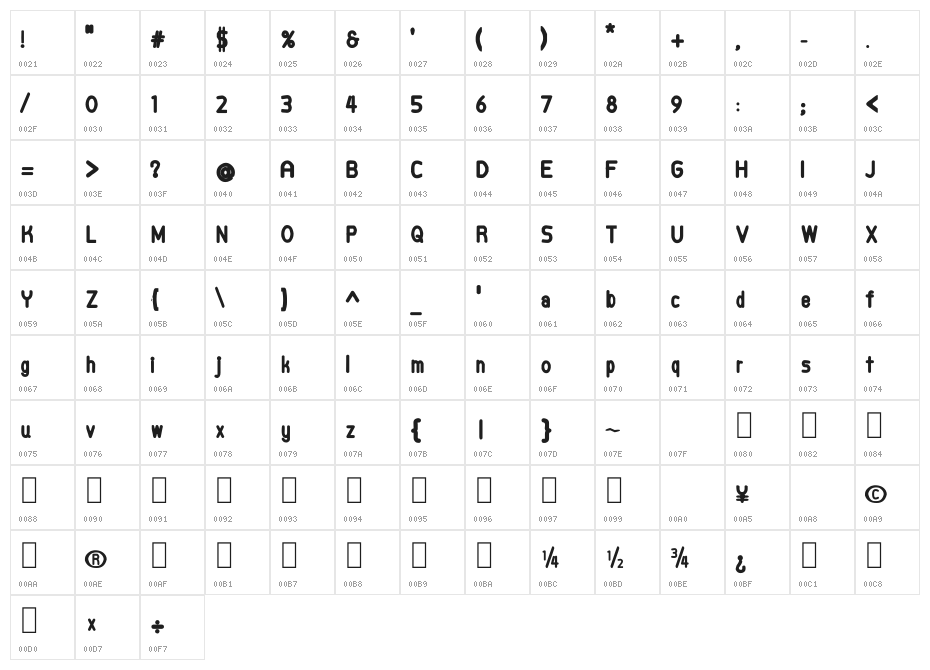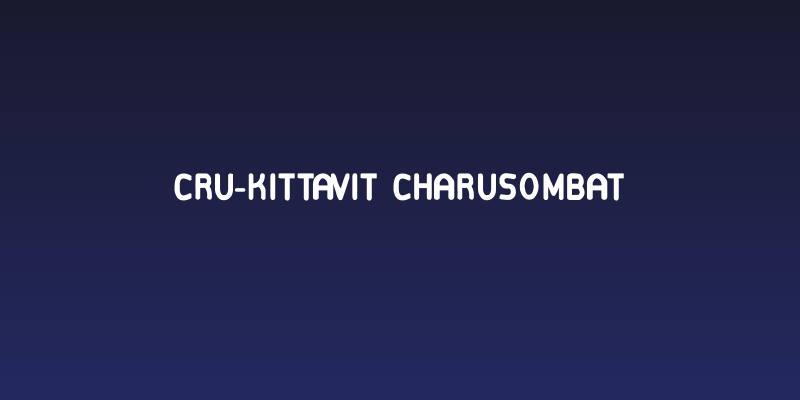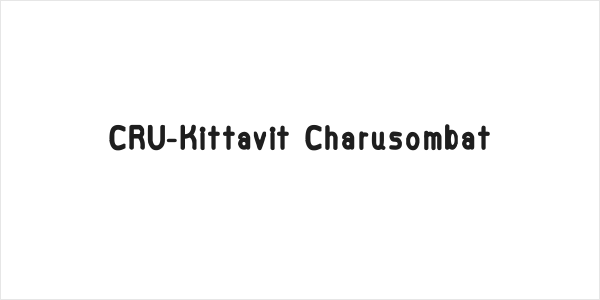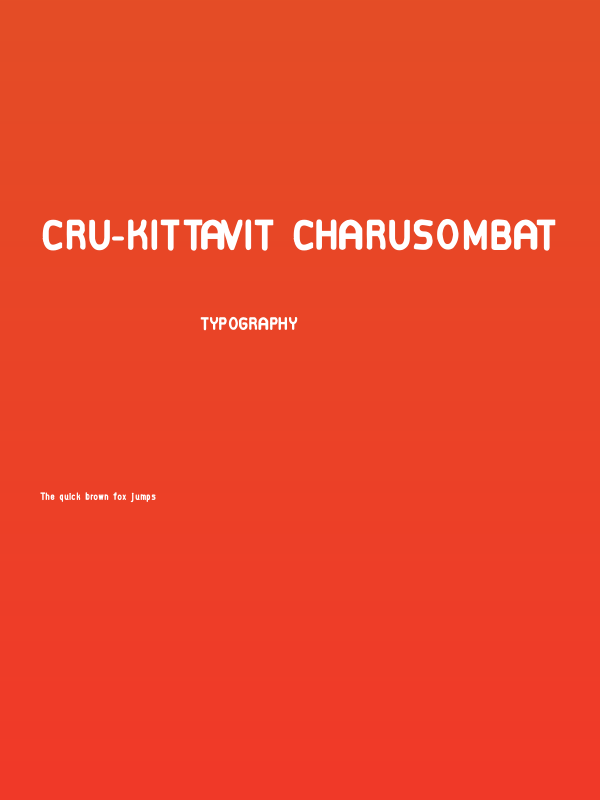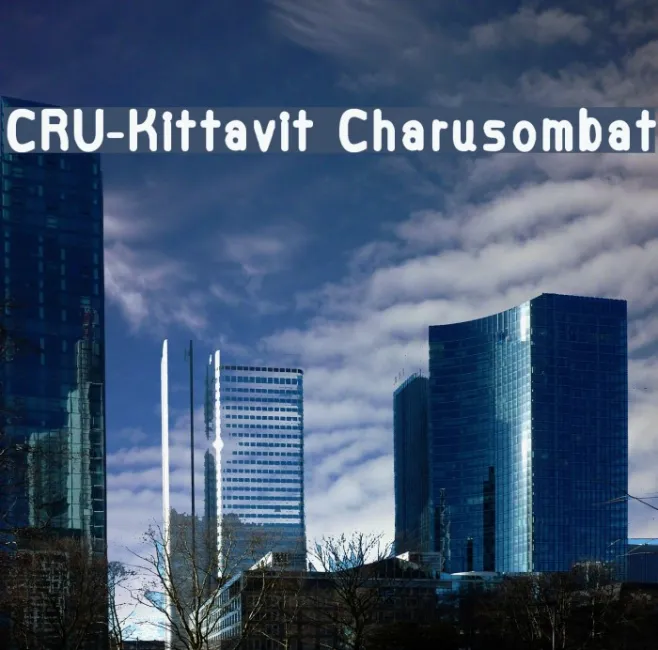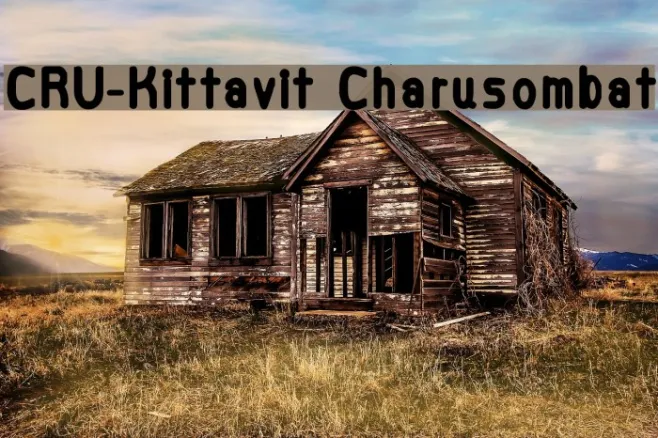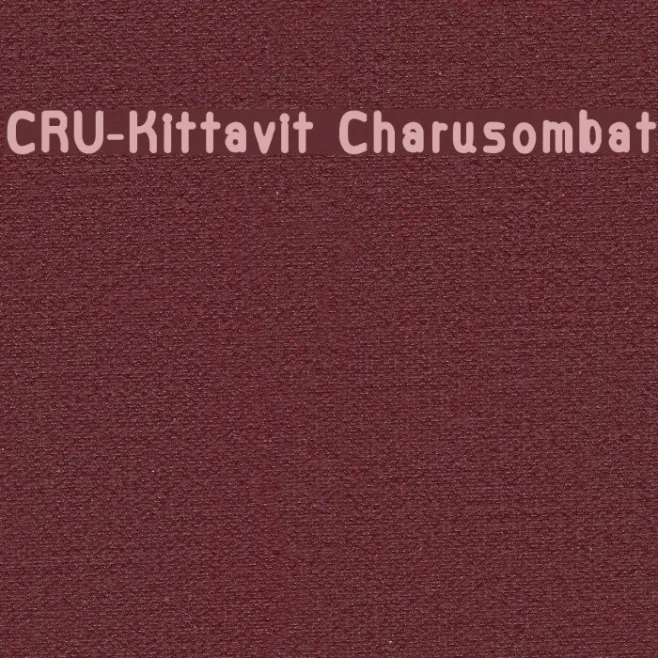
CRU-Kittavit Charusombat Font
CRU-Kittavit Charusombat Description
This font features a playful and rounded design, characterized by its bold and friendly appearance. The letters are evenly spaced with a consistent stroke width, giving it a cohesive and approachable look. The rounded edges and uniformity in the letterforms contribute to its modern and casual style, making it suitable for a variety of applications. The numerals and special characters maintain the same rounded aesthetic, ensuring a harmonious visual experience across all text elements.
| Proposed Projects | Ideal for children's books, playful branding, casual invitations, and educational materials. |